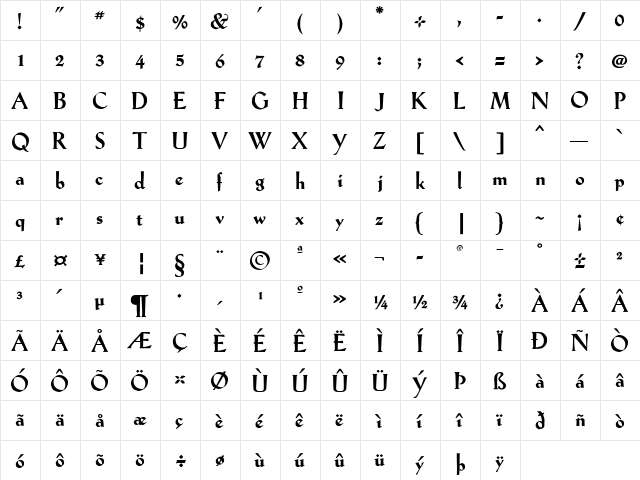
Eva Regular Font Preview
Eva Regular
Eva Regular Font Details
| Foundry | Spiece Graphics |
Design Context for Eva Typeface
Eva takes a measured approach to typography — its balanced proportions and neutral character make it a reliable workhorse for both digital and print work.
Pro Tip: Pair Eva with a font of contrasting weight or personality to build a more expressive typographic hierarchy.